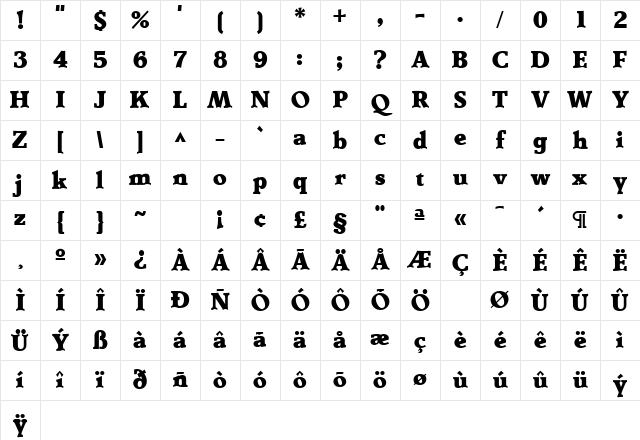
Detente Regular
Detente Family
Design Context for Detente
Detente is a composed and adaptable typeface that performs quietly and consistently across a wide range of design contexts.